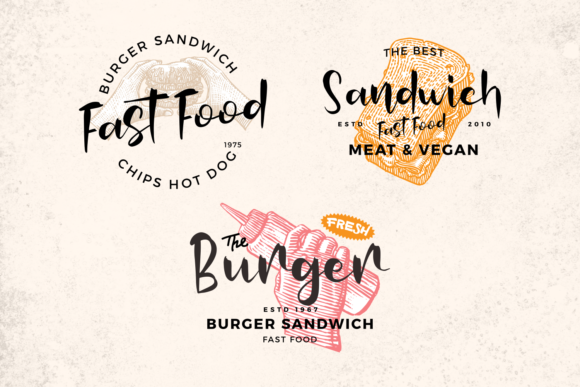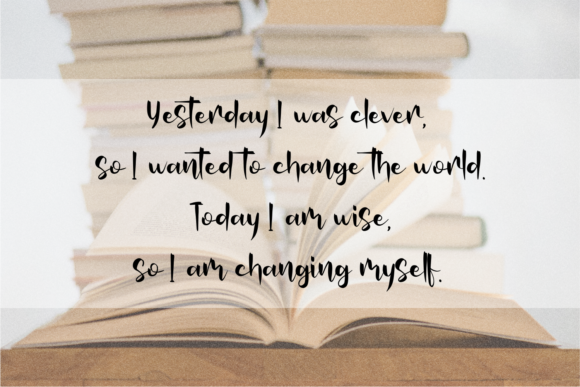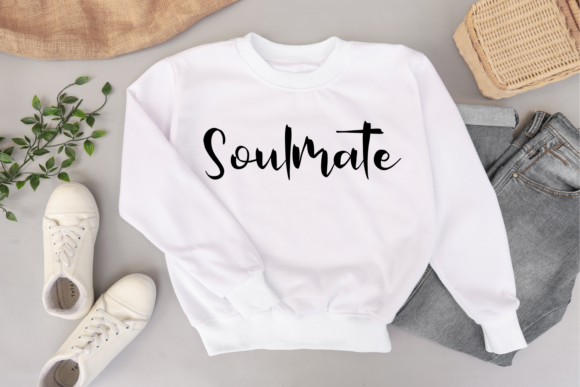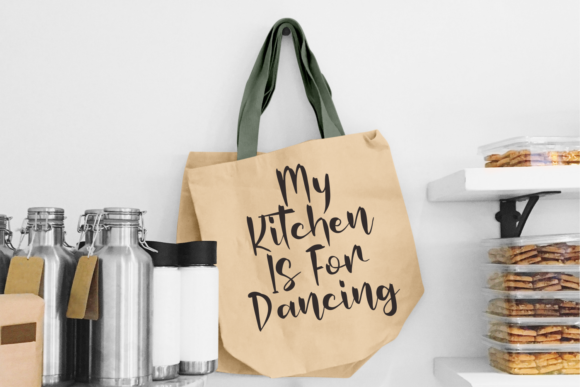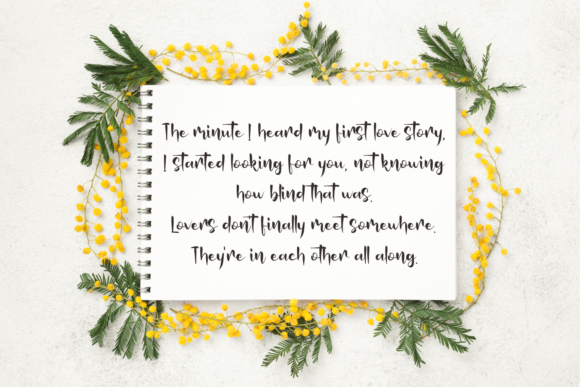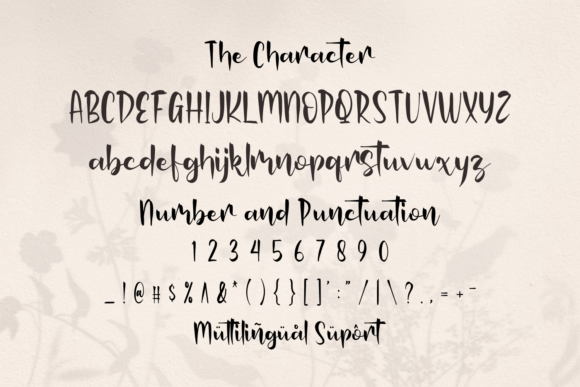
Introduction to Krasty Chips Font
Have you ever been working on a creative project, pouring your heart and soul into it, and then suddenly, the perfect font pops up, elevating your entire design? That’s exactly what happened to many designers when they stumbled upon the Krasty Chips Font.
With its delicate script and elegant feel, the Krasty Chips Font is a game-changer for any design project. Whether you’re working on a personal branding project, a wedding invitation, or a creative advertisement, this font is sure to bring a touch of sophistication and class. Its versatility and high-quality design make it a valuable resource for designers of all levels.
Key Features of Krasty Chips Font
- Unique design: This font features a distinctive and quirky style, perfect for adding a touch of whimsy to your design.
- High-quality design resource: Krasty Chips Font is a well-crafted font, suitable for various creative projects, including digital art and print materials.
- Transparent background: The font’s transparent background allows for easy layering and customization in your design.
- Suitable for various design projects: Krasty Chips Font is an excellent choice for creative projects, including logos, graphics, and typography-based designs.
Honest Review: Krasty Chips Font
As a designer, I’m always on the lookout for high-quality fonts to enhance my creative projects. Recently, I had the chance to try out the Krasty Chips Font, and I must say it’s been a great addition to my design resource library. ✨
One of the things that stood out to me about this font is its unique and playful style. The Krasty Chips Font is perfect for adding a touch of whimsy to your designs, making it a great choice for projects like food labels, packaging, or even children’s book illustrations. The font is available for free download, which is a major bonus for designers on a budget.
Here are some of the key features of the Krasty Chips Font:
- High-quality design that’s perfect for print and digital projects
- Transparent background, making it easy to use in any design scenario
- Perfect for creative projects that require a playful and eye-catching font
One potential limitation of the Krasty Chips Font is its limited character set. ⚠️ If you’re looking for a font with a wide range of characters and symbols, you may want to consider another option.
Overall, I’m really impressed with the Krasty Chips Font and would definitely recommend it to designers looking for a high-quality, unique font for their creative projects. ✨
For a high-quality design, use the Krasty Chips Font with a transparent background to create a clean and modern look. Experiment with different font sizes and colors to achieve the desired effect.
The Krasty Chips Font is ideal for creative projects, such as logos, branding, and advertising materials. It’s also great for designing websites, social media graphics, and other digital content.